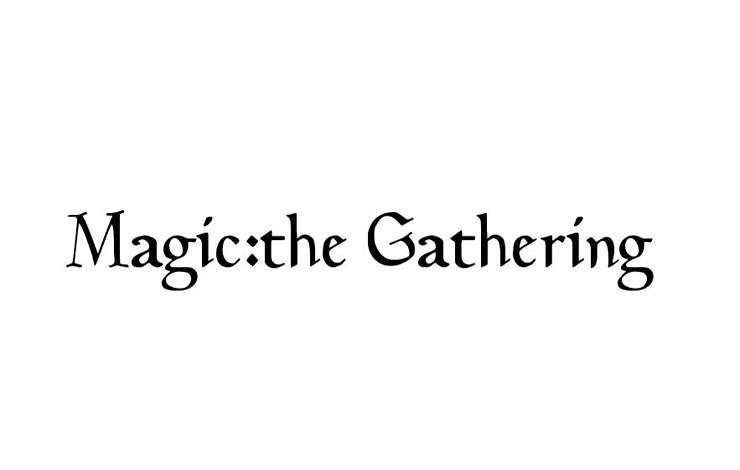
Magic: the Gathering Font is a logo typeface basically it is a tabletop and digital collectible card game created by Richard Garfield and released in 1993 by Wizards of the Coast.
It has a slim texture with extra sharpness. That comes just because of its excessive corners. It gives a unique effect when used in designs, especially horror designs.
Magic The Gathering Font is available in just one regular style along with 98 characters including uppercase, lowercase, marks, and numbers. Moreover, it also supports 34 languages.
| Style: | Logo, Gothic, Horror |